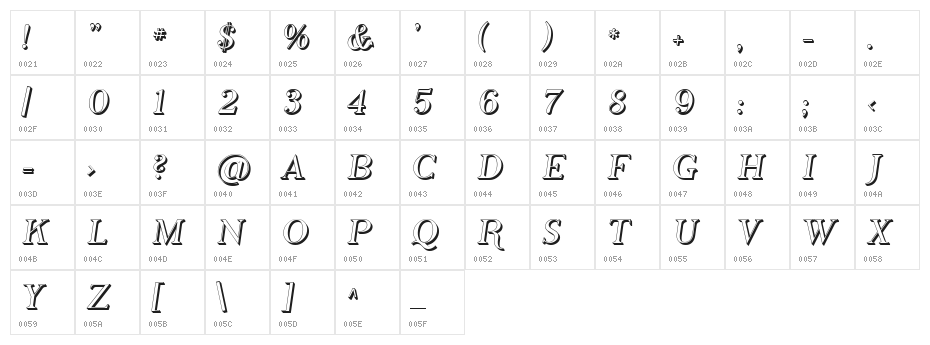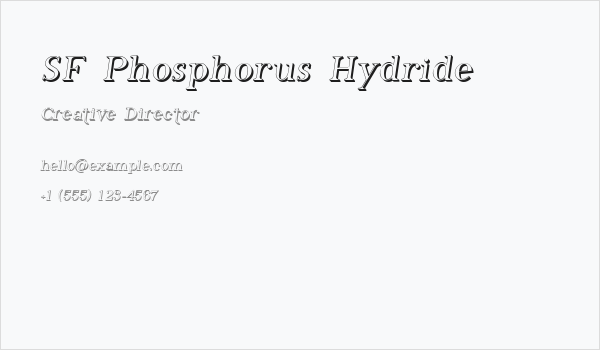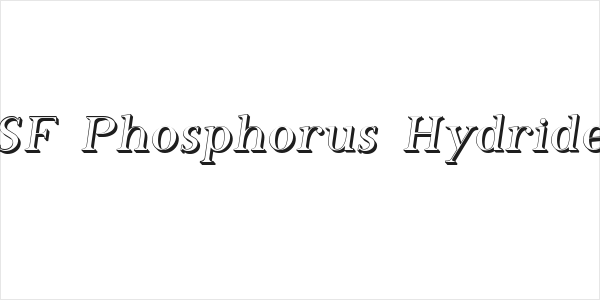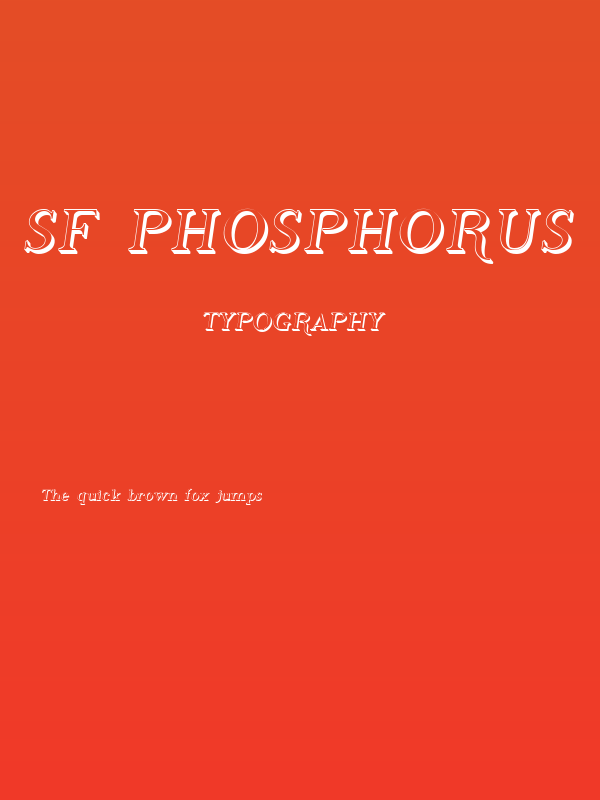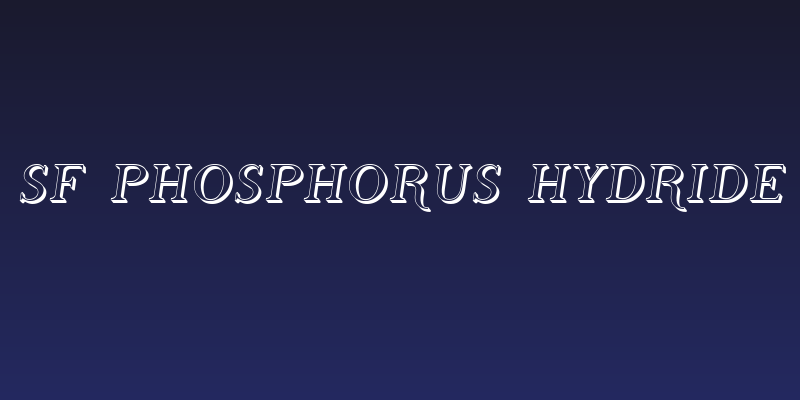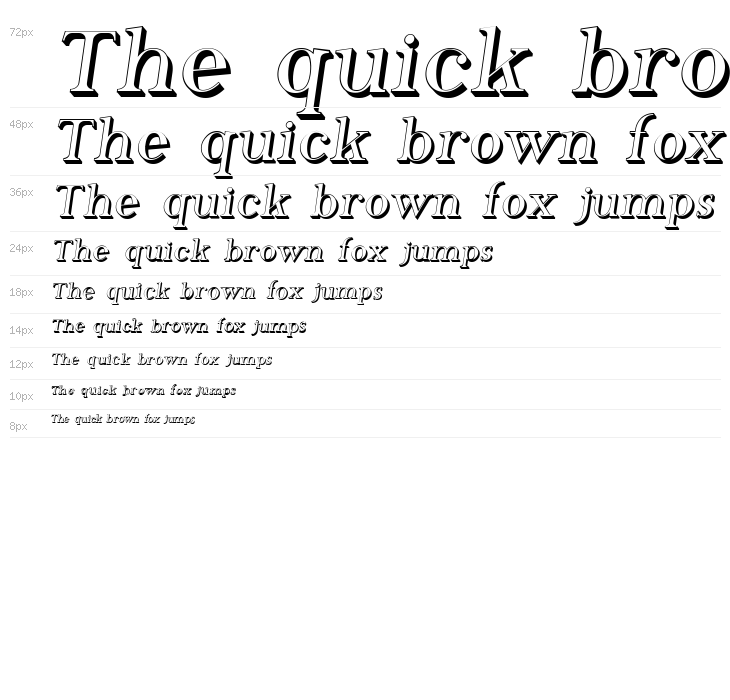
SF Phosphorus Hydride Font
SF Phosphorus Hydride Description
This font features a bold and dynamic style with a three-dimensional effect created by a shadow or outline that gives it a striking appearance. The characters are serifed, adding a touch of classic elegance while maintaining a modern flair. The uppercase and lowercase letters are well-proportioned, with a slight slant that suggests movement and energy. The numerals are consistent with the letterforms, ensuring a cohesive look across all characters. Special characters are included, maintaining the same stylistic elements, making this font versatile for various design needs.